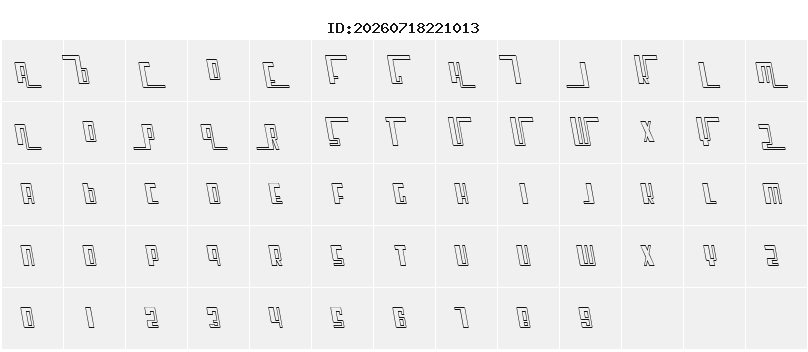
Cosmic Age Outline Preview
• Font Name: Cosmic Age Outline
• Font ID: Macromedia Fontographer 4.1 Cosmic Age Outline Italic
• Full Font Name: Cosmic Age Outline Italic
• Version: Macromedia Fontographer 4.1 2/10/99
• PostScript Name: CosmicAgeOutlineItalic
• Character Count: 93
About Cosmic Age Outline.ttf
Cosmic Age Outline.ttf is a modern, elegant sans-serif font designed for ultimate readability and visual harmony. Perfect for branding, headlines, web design, and print materials.